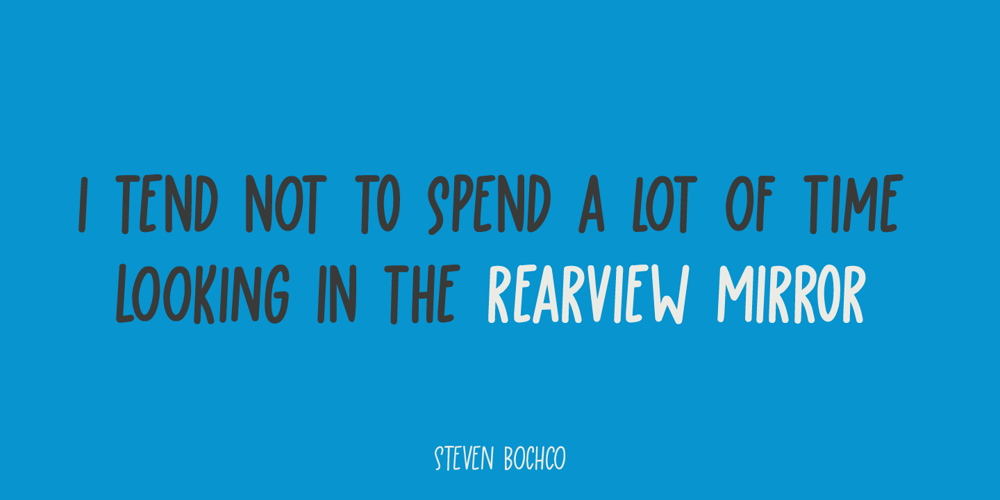
Rearview Mirror
Rearview Mirror font
Rearview Mirror Font Family was designed by David Kerkhoff and published by Hanoded. Rearview Mirror contains 4 styles and family package options. Rearviewmirror (no space) is a Pearl Jam song and it happens to be my favourite! Rearview Mirror is a handmade tall & thin font. It comes in a regular and bold style with their italics.